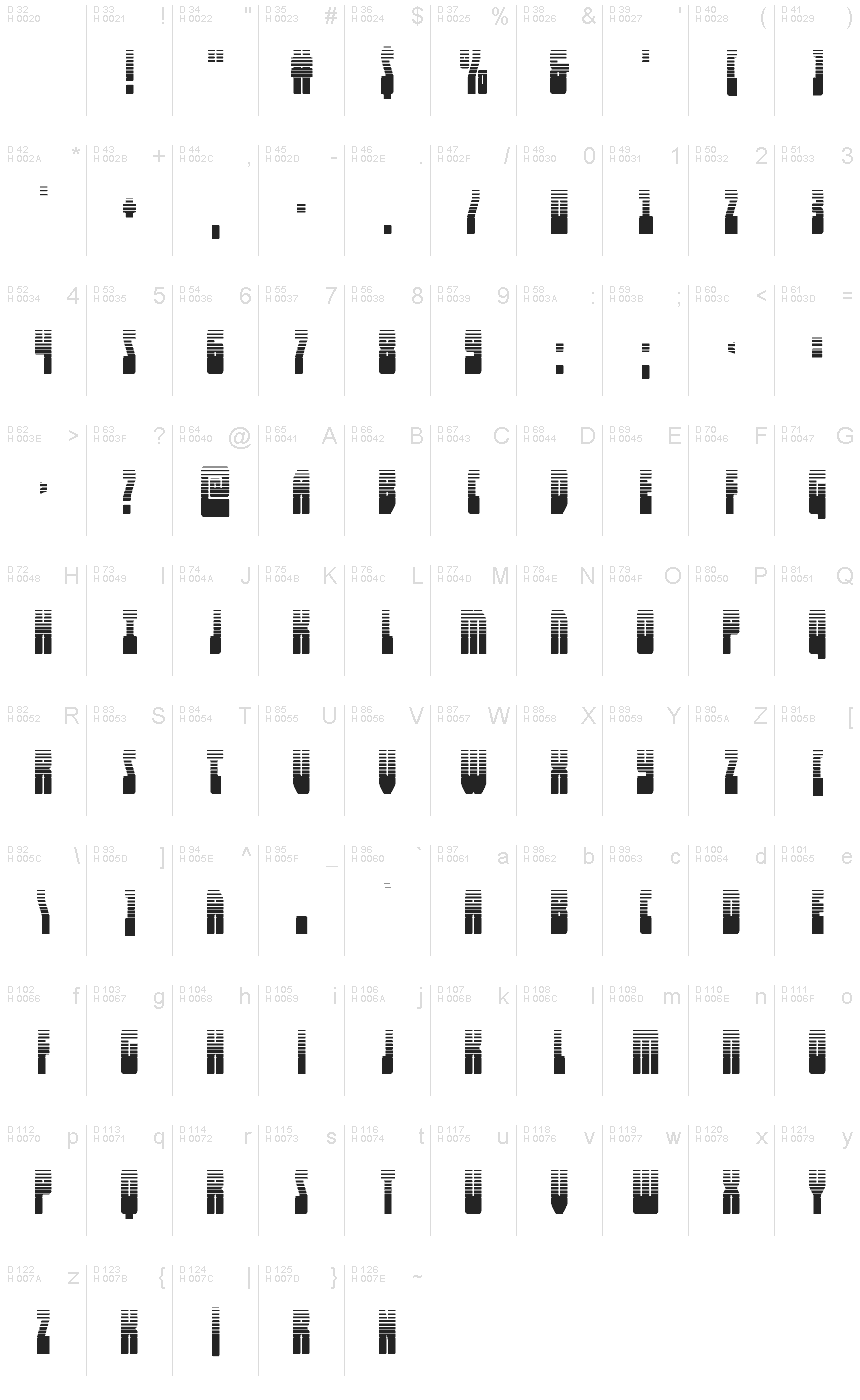
Elastic Lad Halftone
Elastic Lad Halftone font is a bold, condensed display typeface by Iconian Fonts. Its groovy style features a modern aesthetic with retro influences, making it ideal for tech-related branding and futuristic themes. The striped, geometric design presents a contemporary and modular appearance, blending classic vibes with a futuristic twist.
The free display font works perfectly in magazine titles, book covers, product packaging boxes, sign boards above shops and stores (storefronts), posters on walls around the city among others. Made to attract attention in any context, it’s a perfect fit for dynamic web page designs as well.